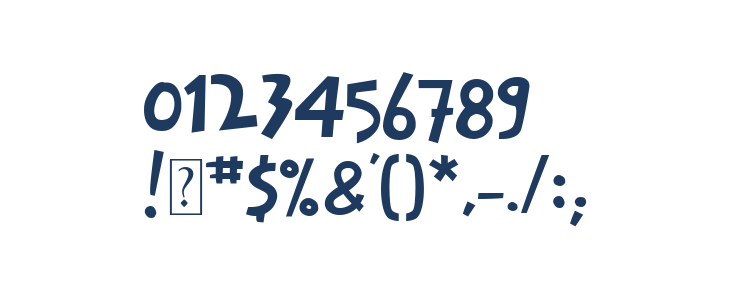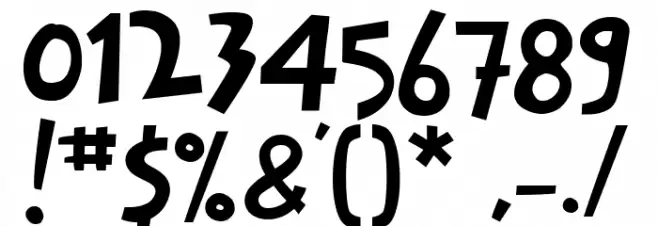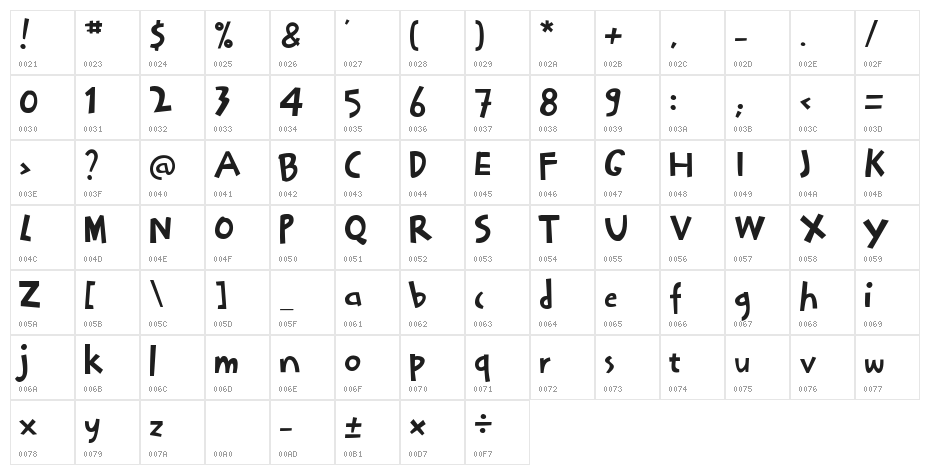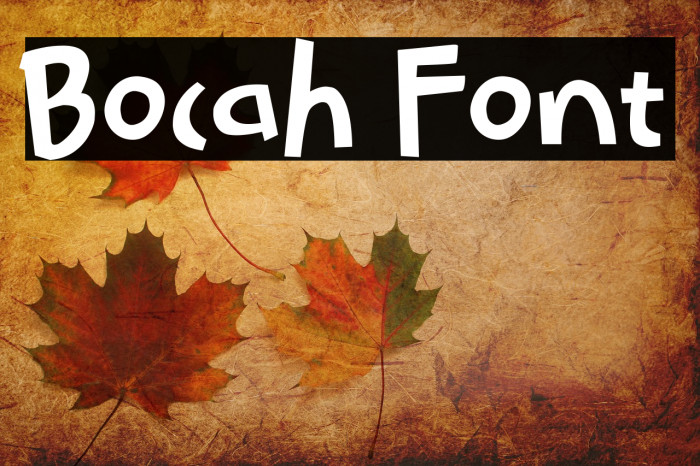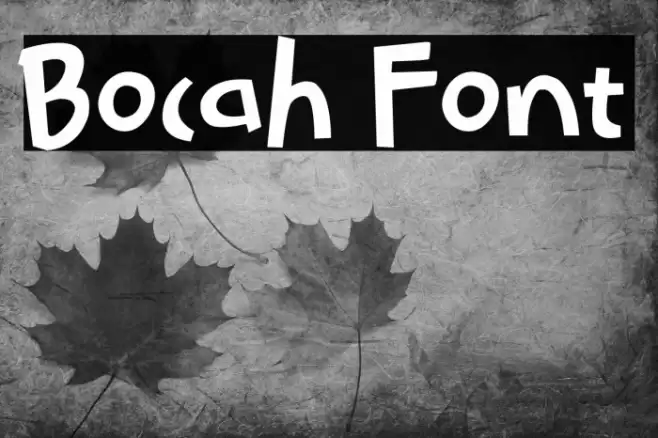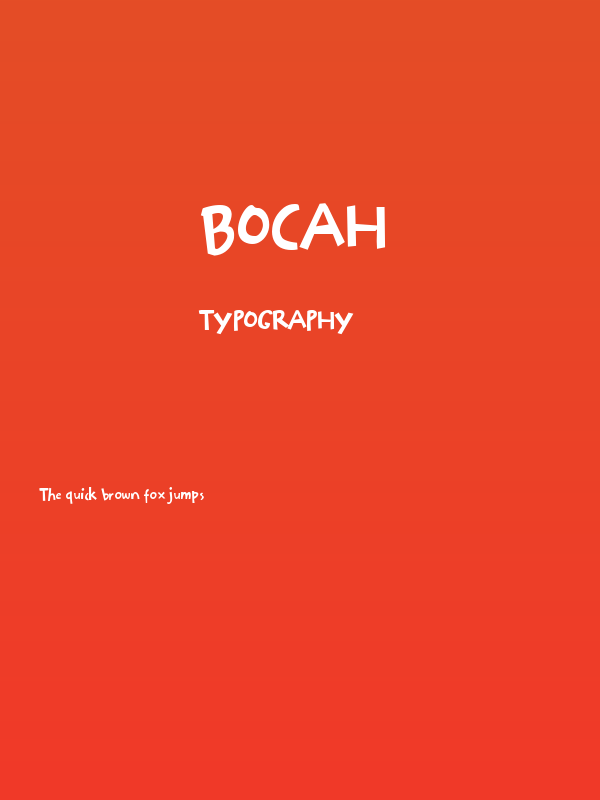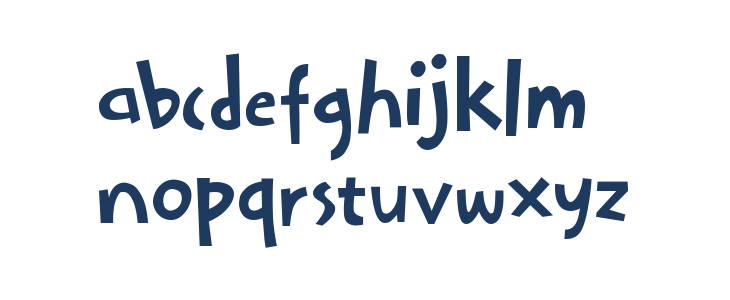
Bocah Font
Bocah Description
This playful and quirky font features bold, uneven strokes that give it a hand-drawn appearance. The letters have a whimsical, cartoon-like quality, with exaggerated curves and angles that create a sense of movement and energy. The uppercase and lowercase letters are distinct, with the uppercase being more angular and the lowercase more rounded. Numbers and special characters maintain the same lively style, making this font ideal for creative and informal designs. Its unique character makes it stand out, perfect for projects that require a touch of fun and individuality.
| Overall Style | Playful, Quirky, Hand-drawn |
| Proposed Projects | Ideal for children's books, comic strips, playful branding, and creative posters. |